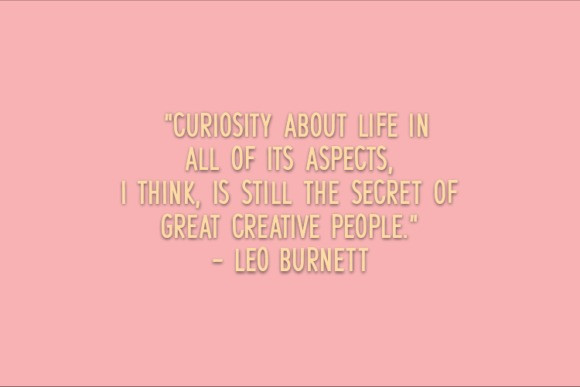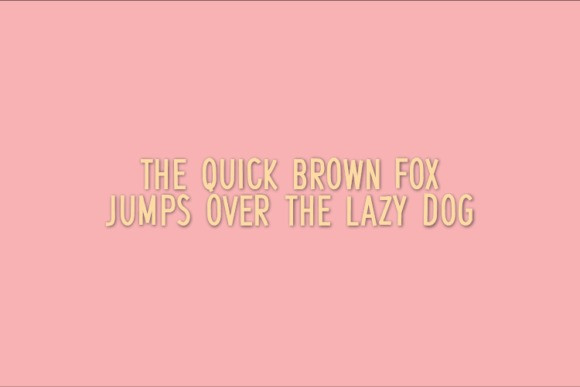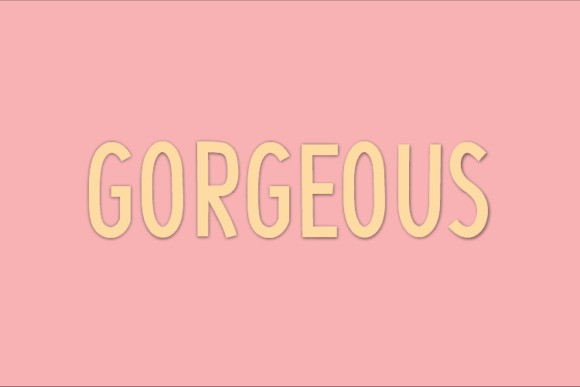
Gorgeous Font
Gorgeous Font is an interesting and unique sans serif font perfect for quotes, notes, T-shirts, and many more. Add it to your font collection, and it will make your creative projects outstanding!